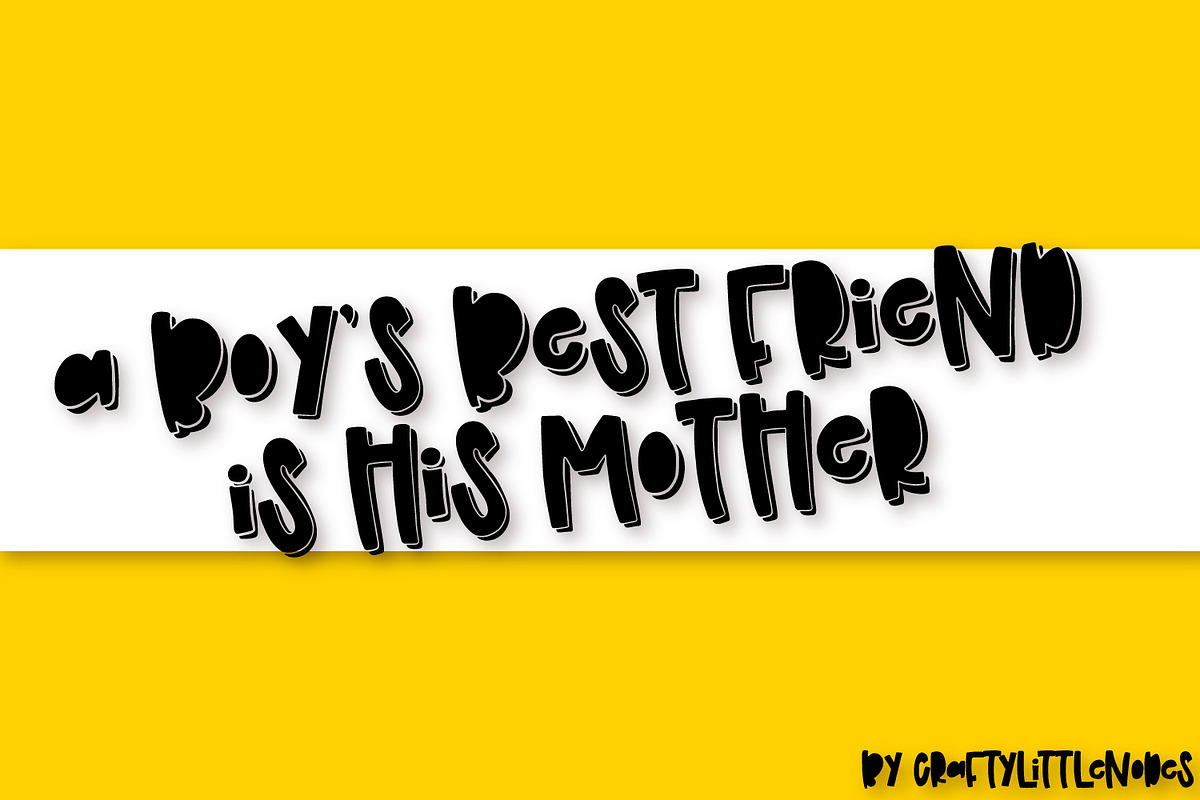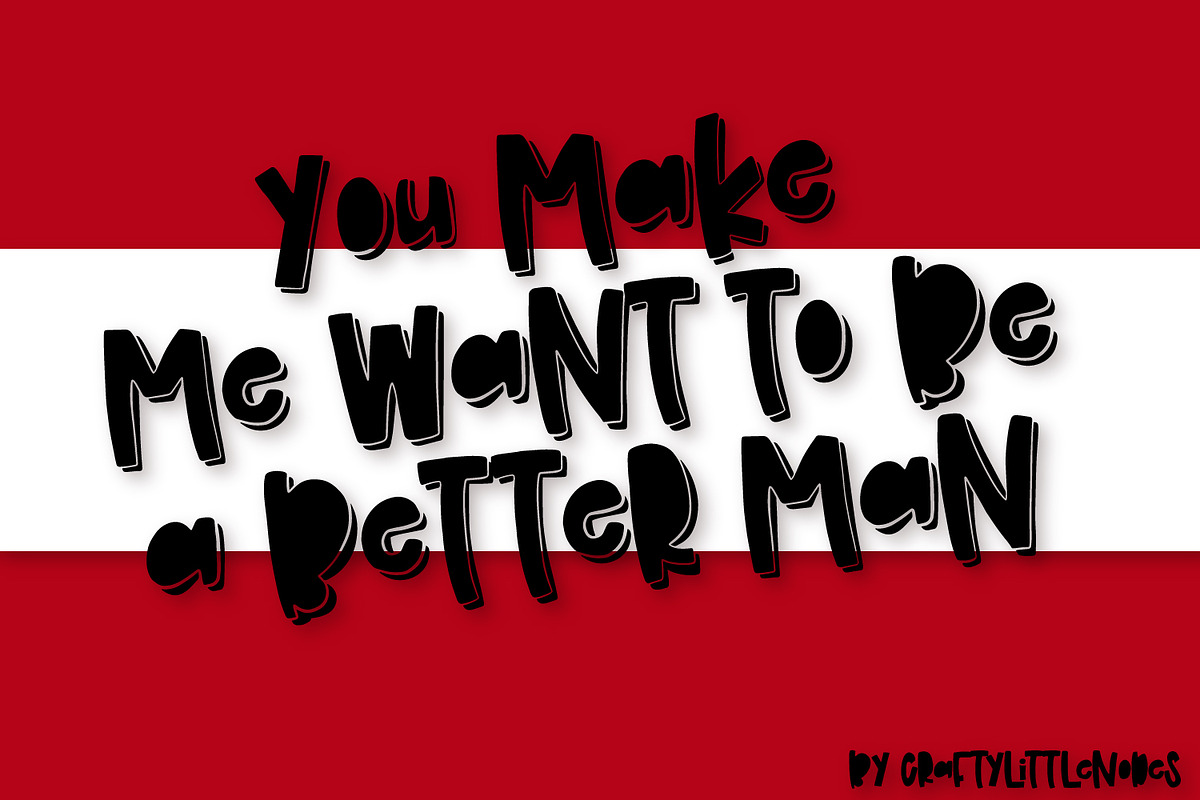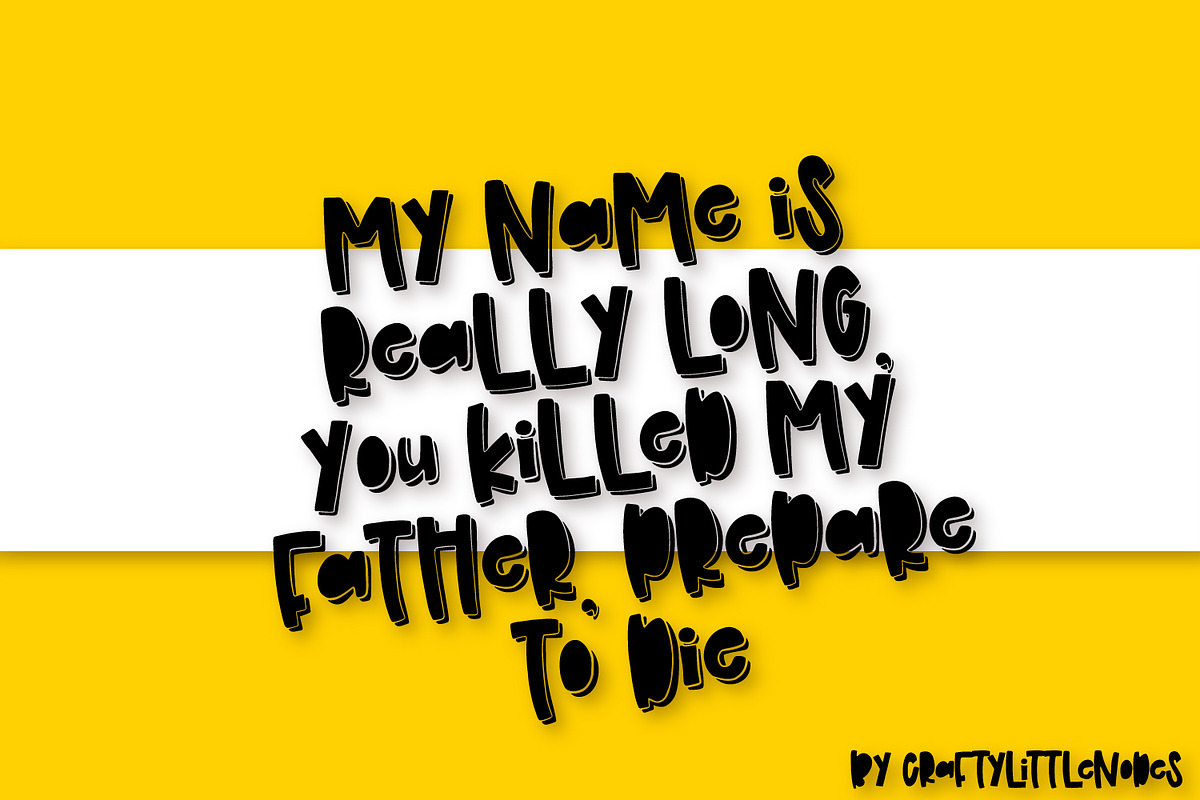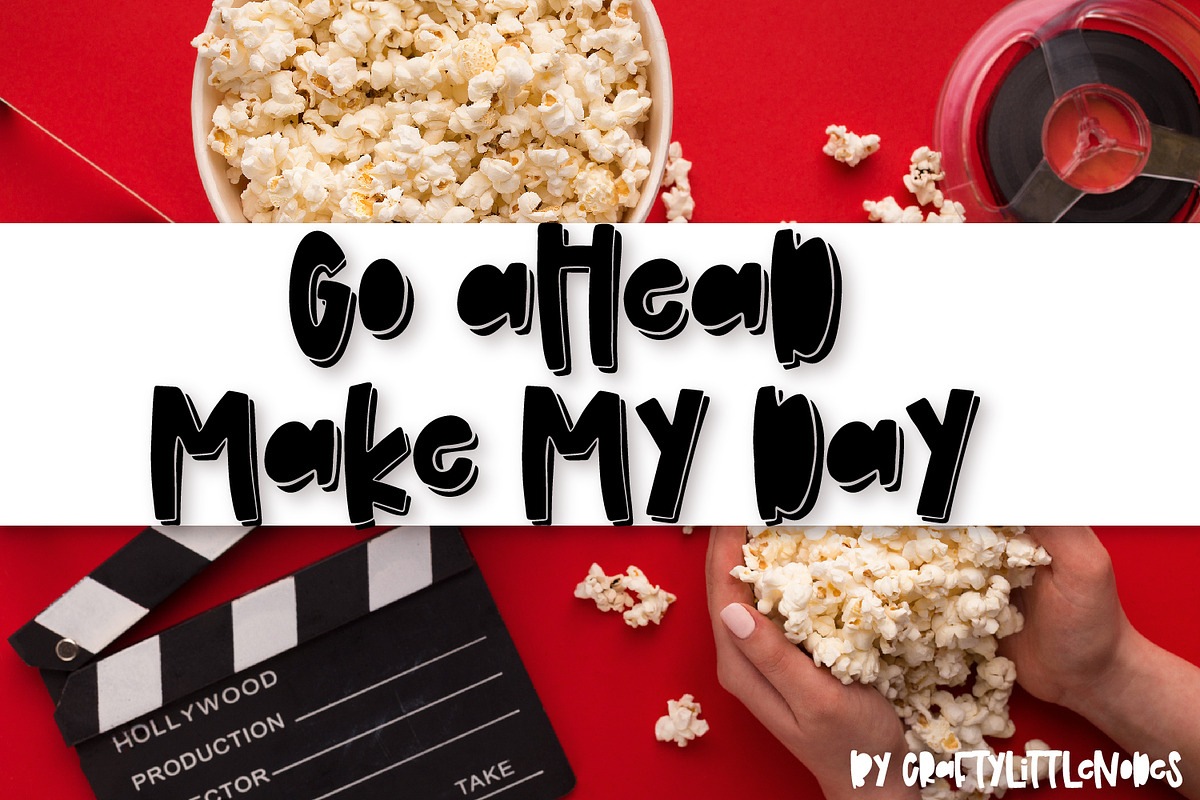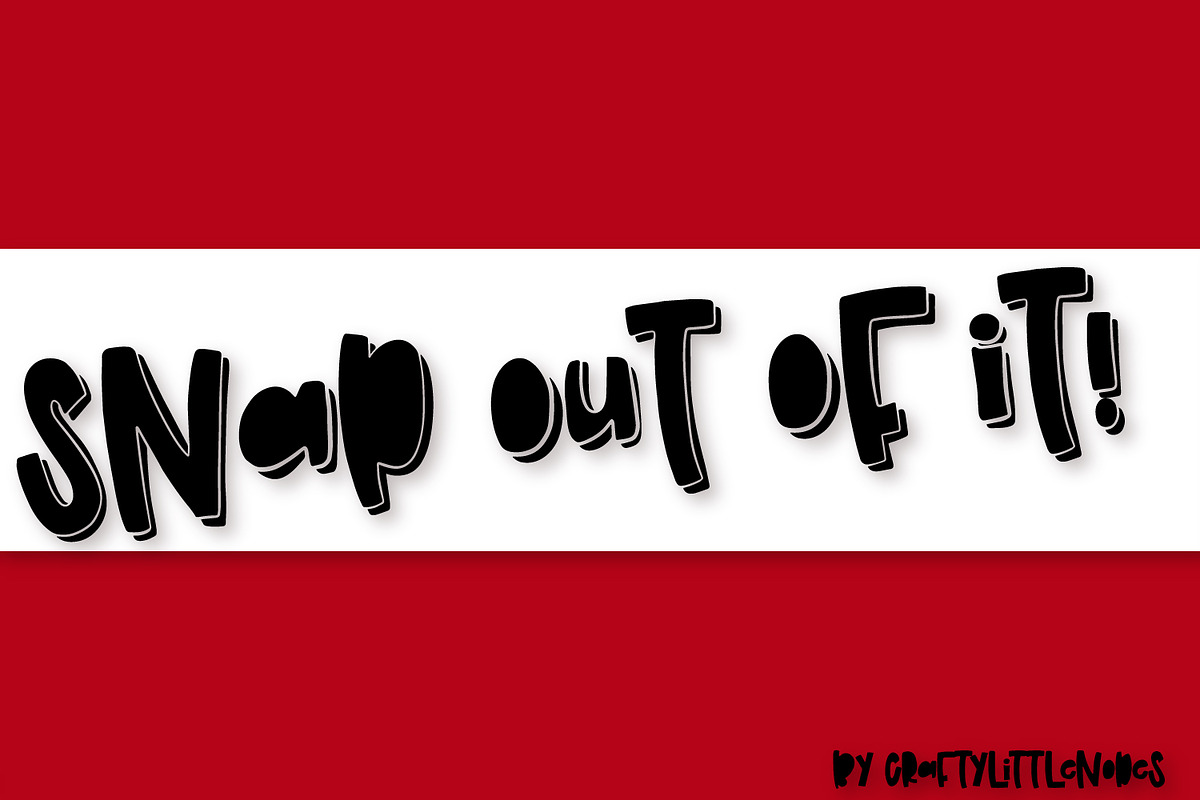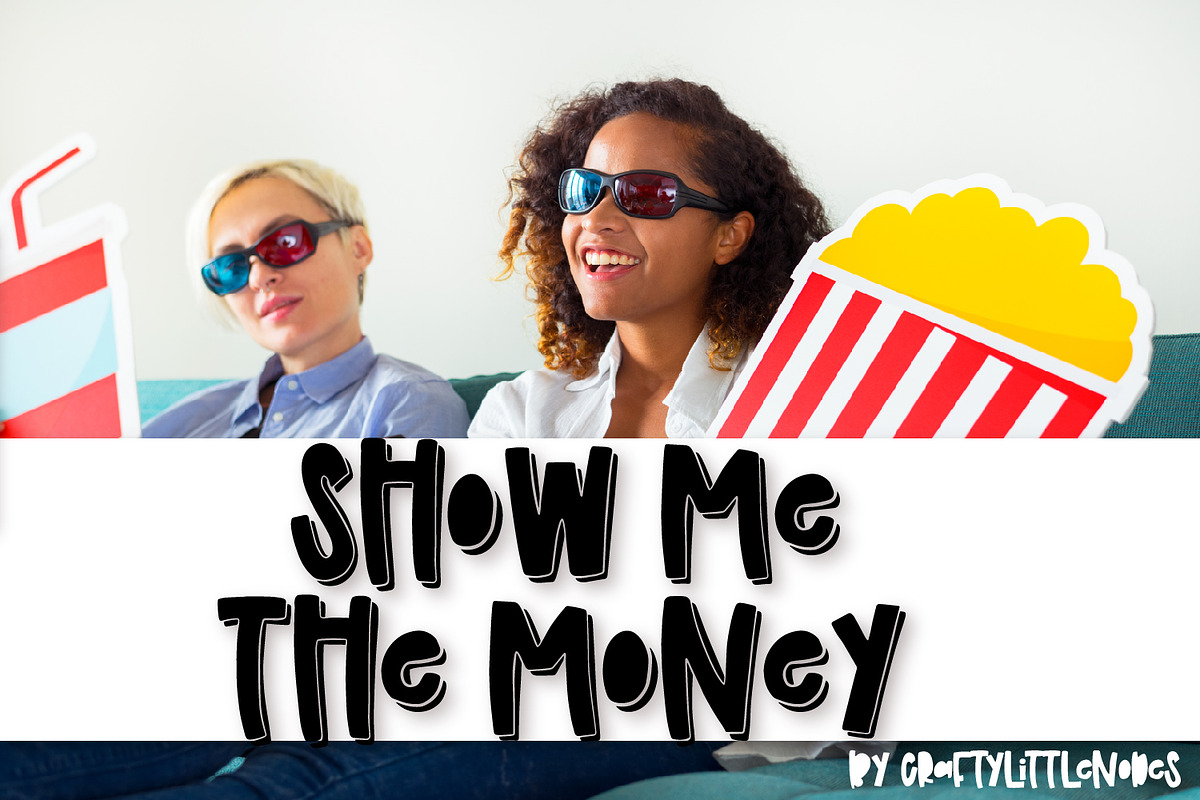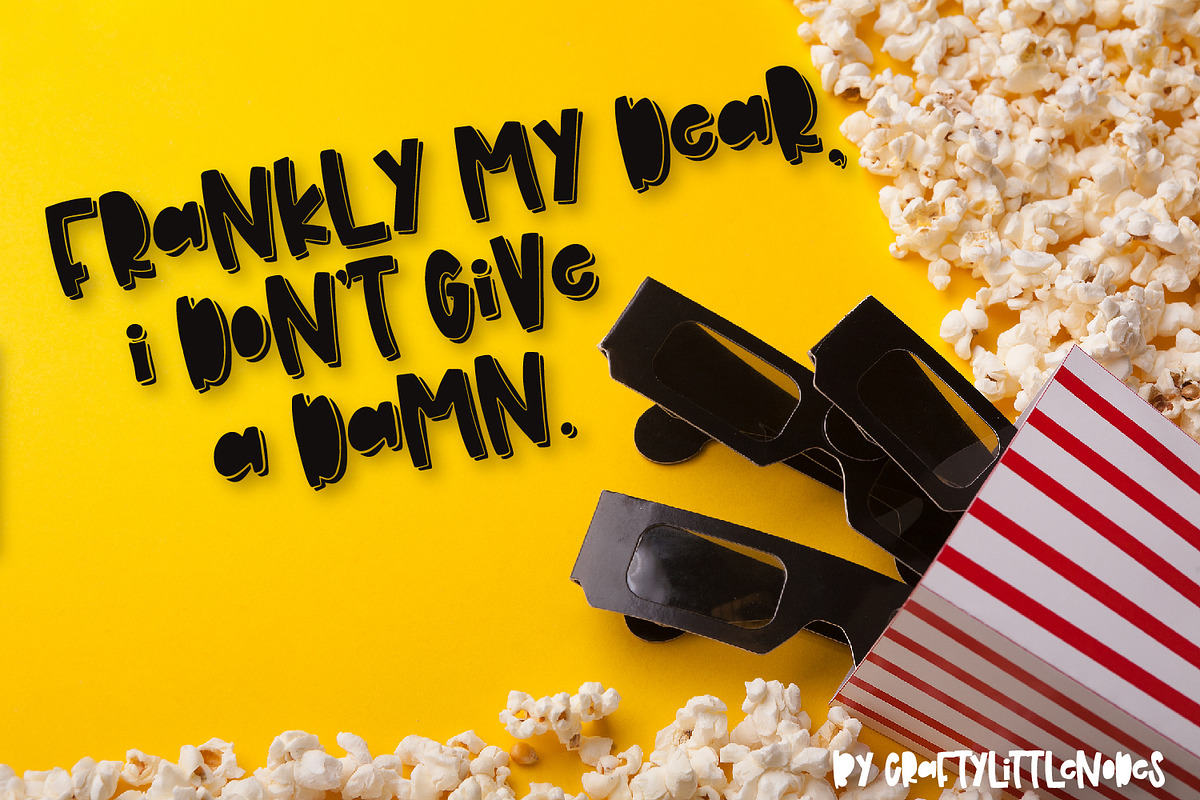
Binge Watch - A Shadow Font Trio
Why Binge Watch - A Shadow Font Trio is worth a look
Binge Watch - A Shadow Font Trio by CraftyLittleNodes fits naturally into Branding, posters, packaging, typography.